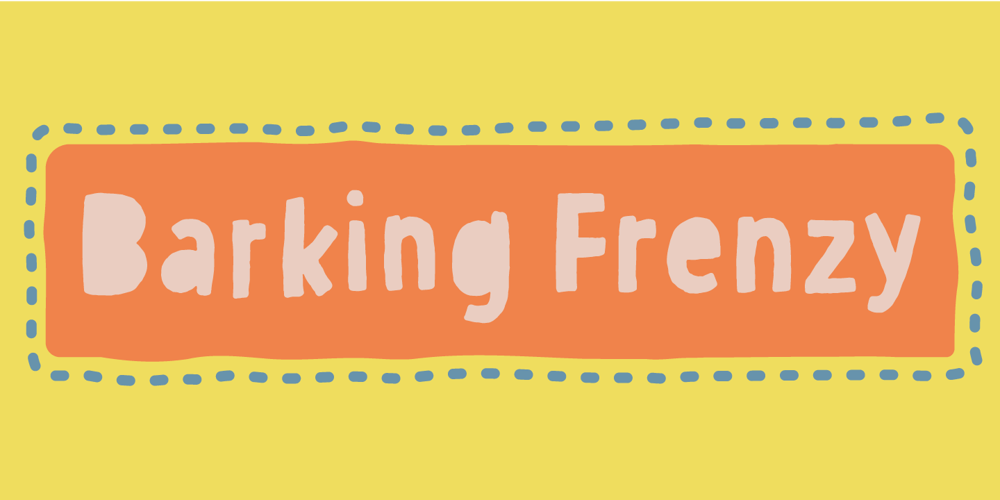
Barking Frenzy
Barking Frenzy font
Barking Frenzy Font Family was designed by Jakob Fischer and published by PizzaDude.dk. Barking Frenzy contains 2 styles and family package options. Barking Frenzy may look as if it was cut out of paper or cardboard, but it’s not! It was drawn with a rugged pen, leaving rough edges here and there.It’s great for children’s books and toys or maybe handcraft or other handcrafted activities.I’ve added 5 different versions of each lowercase letter and these appear randomly as you type. That way your text looks really natural and organic, because the letters rarely repeat themselves.Also the font has multilingual support!